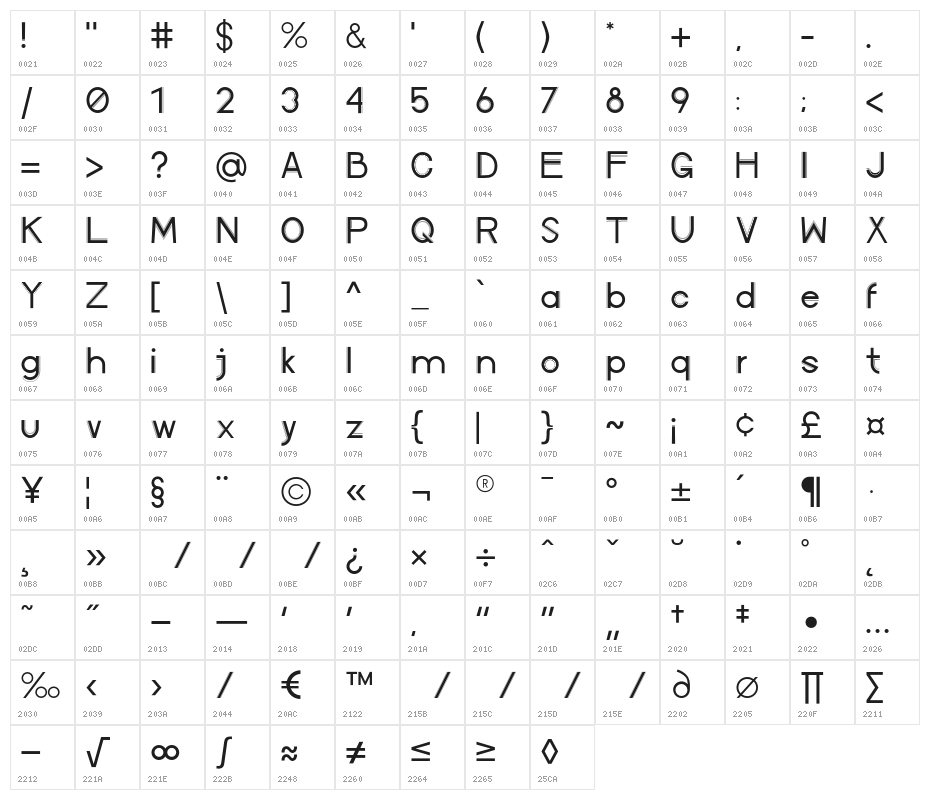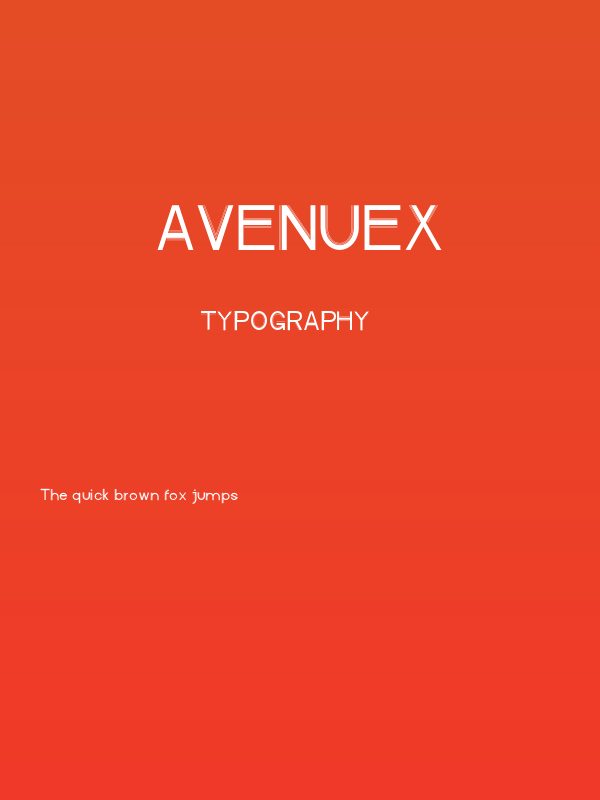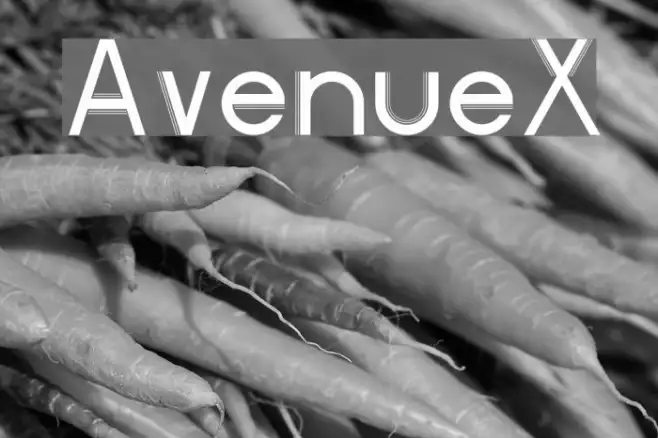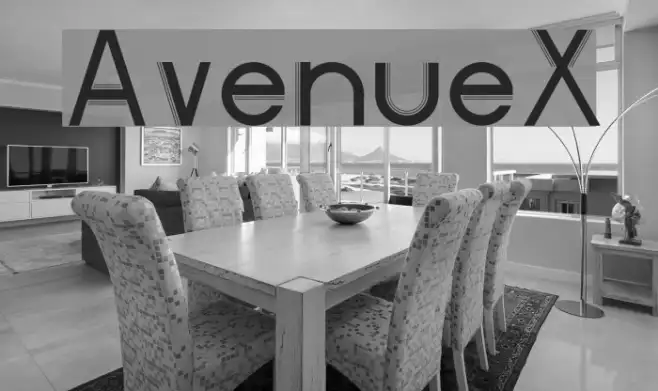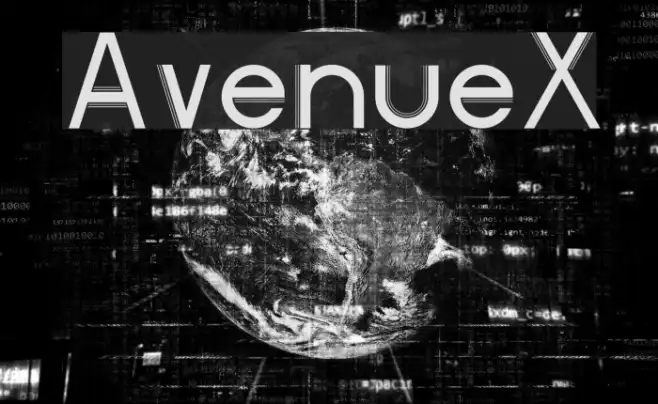
AvenueX Font
AvenueX Description
This font features a modern and geometric design with clean lines and a structured appearance. The uppercase letters are bold and striking, while the lowercase letters maintain a consistent style with a slightly softer touch. The numerals are clear and easy to read, complementing the overall aesthetic. Special characters are well-integrated, maintaining the font's cohesive look. The font's design is suitable for contemporary projects, offering a blend of functionality and style.
| Proposed Projects | Ideal for branding, advertising, and editorial design projects where a modern and clean aesthetic is desired. |